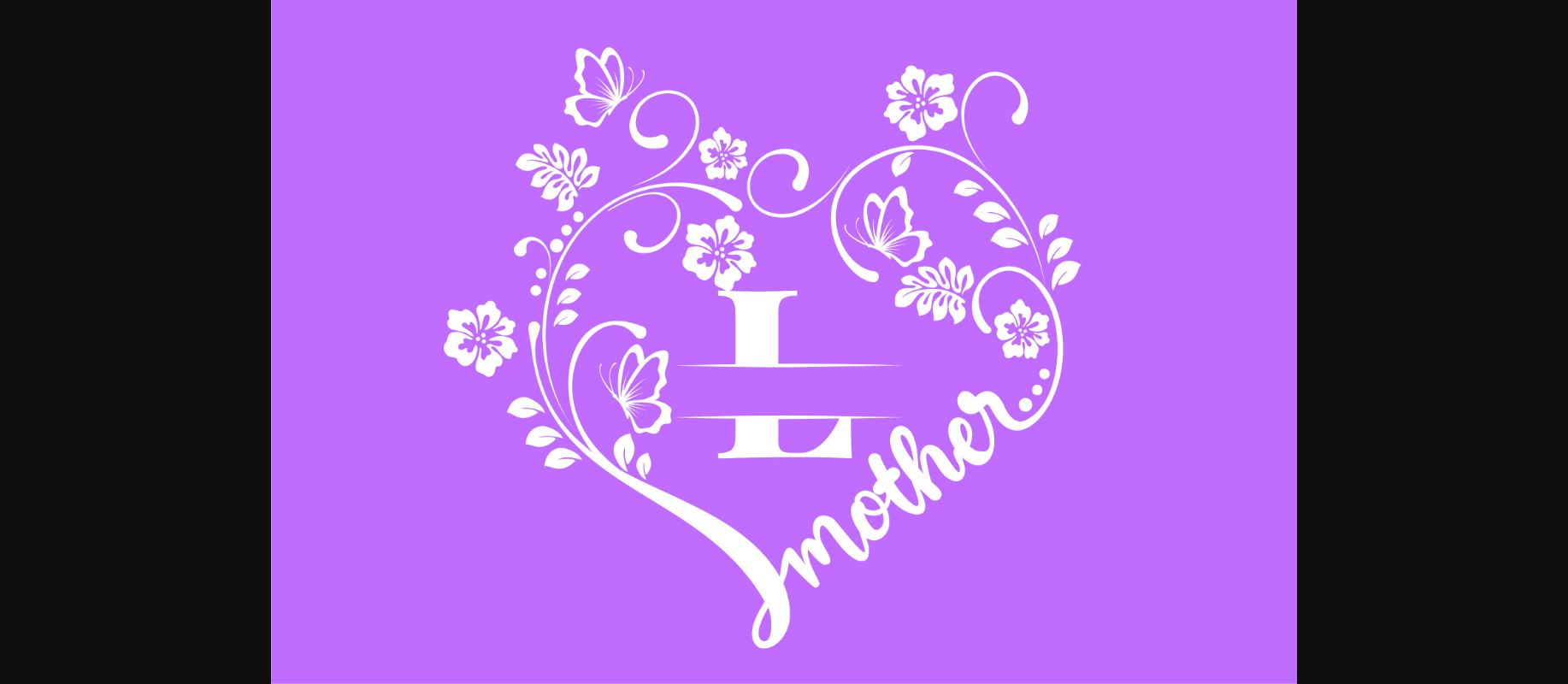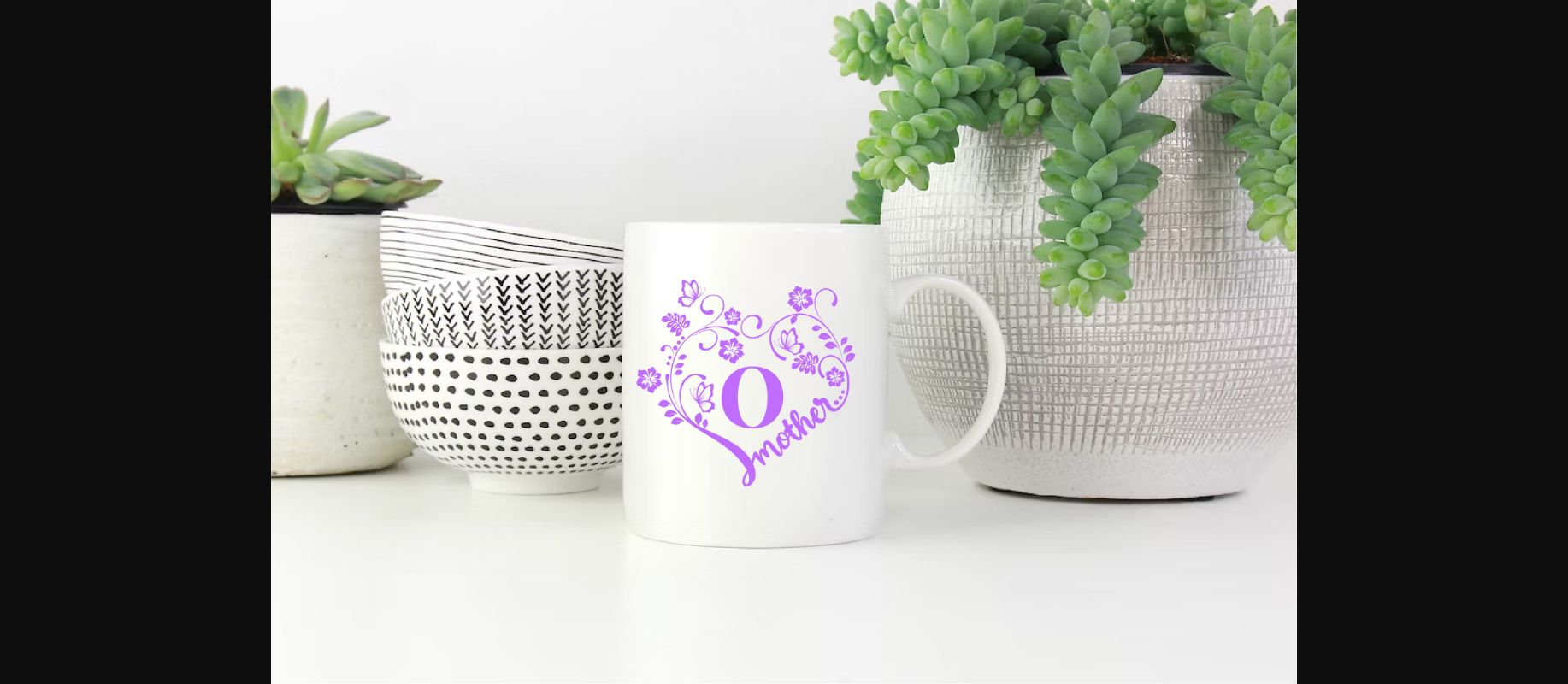
About Mother Love Font
Mother Love is a beautiful monogram decorative font, featuring charming ornaments.
Fall in love with its authentic feel and use it to create gorgeous stationary art, eye-catching social media posts, and cute greeting cards.